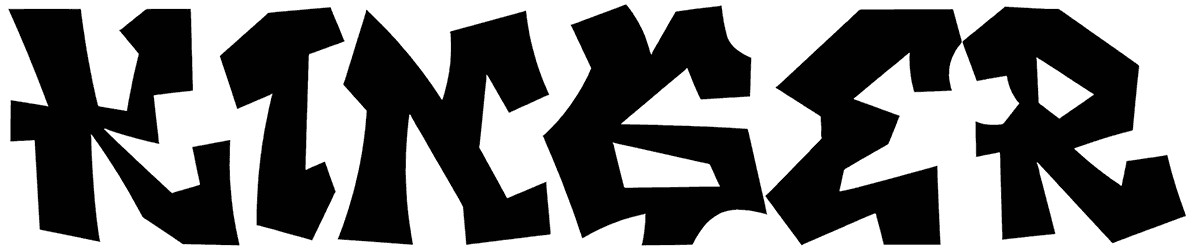
Kinger Font
Kinger is an all-caps script font that comes with two unique styles to make your graphic content distinctive. This graffiti font has an urban form that makes your banners, covers, album design, or painting look more impressive.
It adds a sense of jauntiness, vibrancy, or intimacy to your creative ideas and makes them stand out alongside all of their counterparts. Although it has no offer for numbers and lowercase letters, it would do its duty in highlighting your projects.